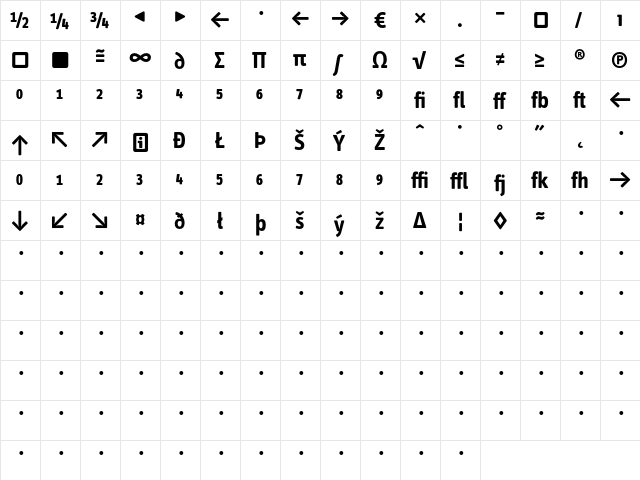
InfoDispBold RomanExp Font Preview
InfoDispBold RomanExp
InfoDispBold RomanExp Font Details
Design Context for InfoDispBold Typeface
InfoDispBold takes a measured approach to typography — its balanced proportions and neutral character make it a reliable workhorse for both digital and print work. The heavy weight commands attention and anchors typographic hierarchies.